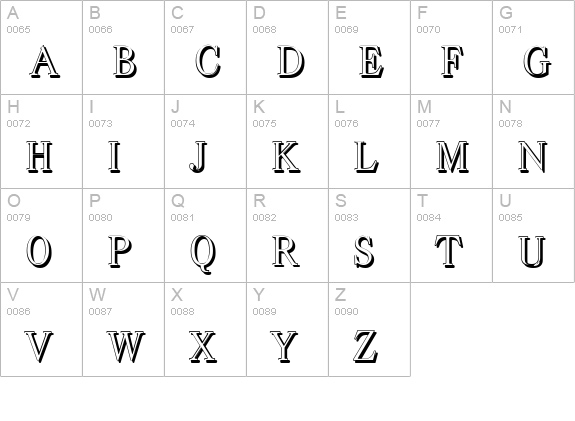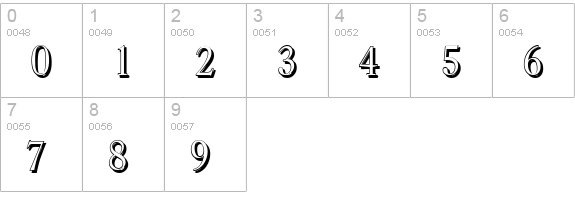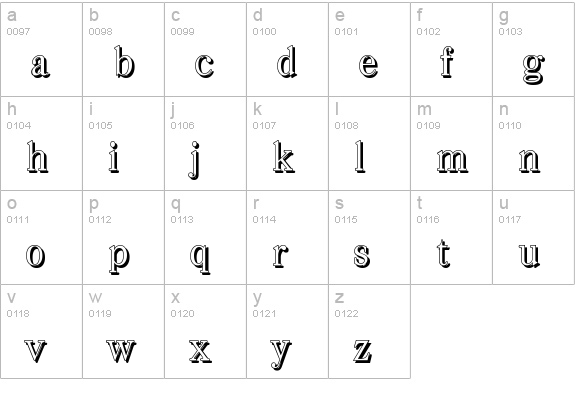
CasadShadow-Light-Regular Font Details
CasadShadow-Light-Regular is a refined, elegant variant in the CasadShadow typeface family \xE2\x80\x94 well suited to elegant body text, refined sub-headings, and luxury branding.
CasadShadow-Light-Regular font is a modern and stylish typeface that exudes elegance and sophistication. With its sleek lines and balanced proportions, this font is perfect for any design project that requires a touch of sophistication and class. The light weight of the font adds a subtle and delicate quality, making it versatile for a variety of applications. What sets CasadShadow-Light-Regular font apart is not only its aesthetic appeal but also the fact that it is available for free download at FontsMarket.com. This means that you can enhance your designs with this beautiful font without any cost, making it an ideal choice for designers on a budget or anyone looking to add a touch of elegance to their projects. Don't miss the opportunity to elevate your designs with CasadShadow-Light-Regular font, available for free at FontsMarket.com.